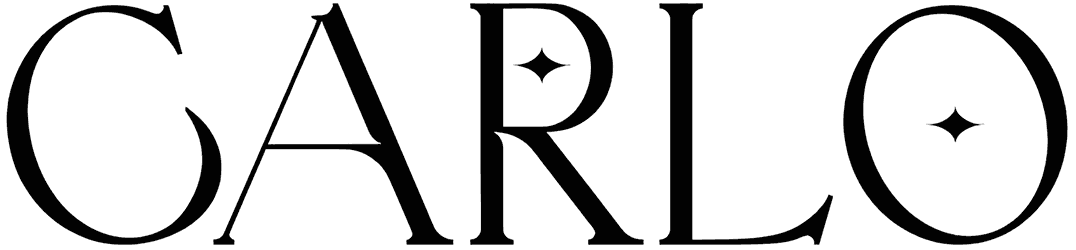
Carlo Font
Carlo is exactly what the audience expects a professional graphic designer to use in posters, logos, branding, magazines, web pages, banner ads, and brochures. This luxury serif font is designed with delicacy and softness, thus, it carries a sense of precision, trustworthiness, confidence, and validity. In case you are looking for more typefaces in the same category, you can trust us and visit our reliable archive.